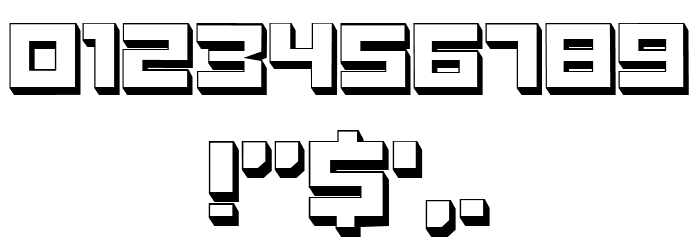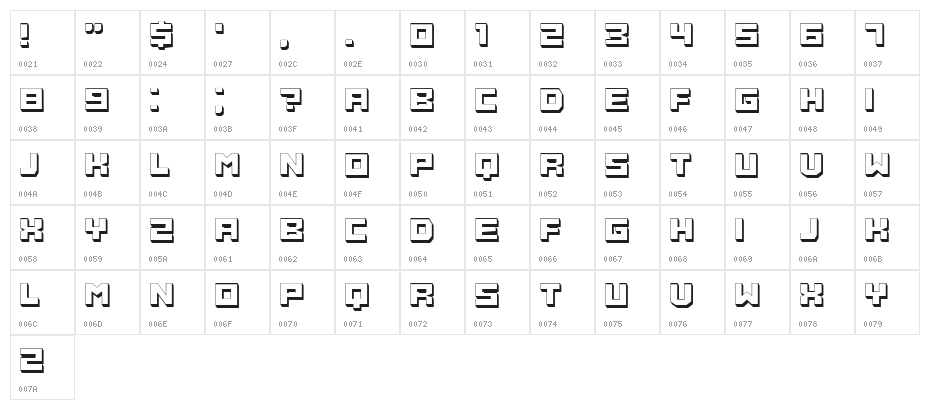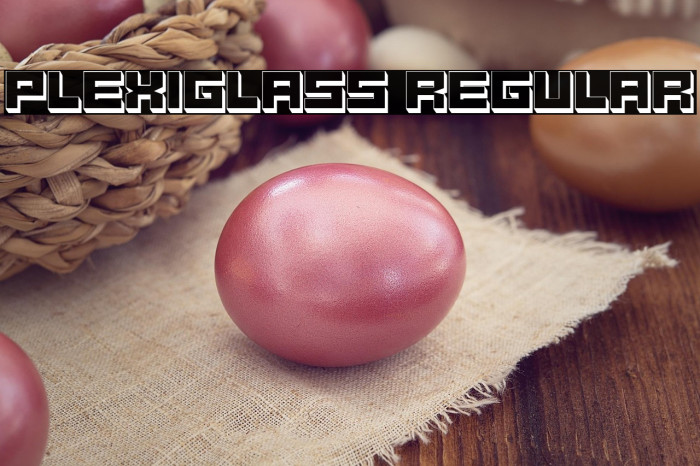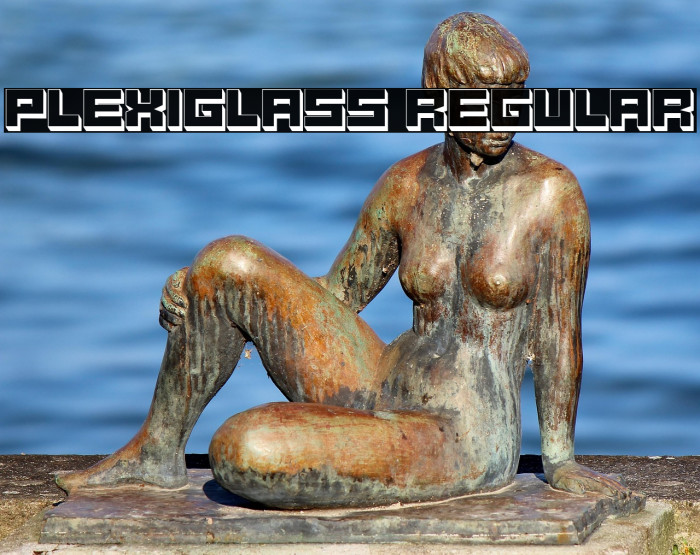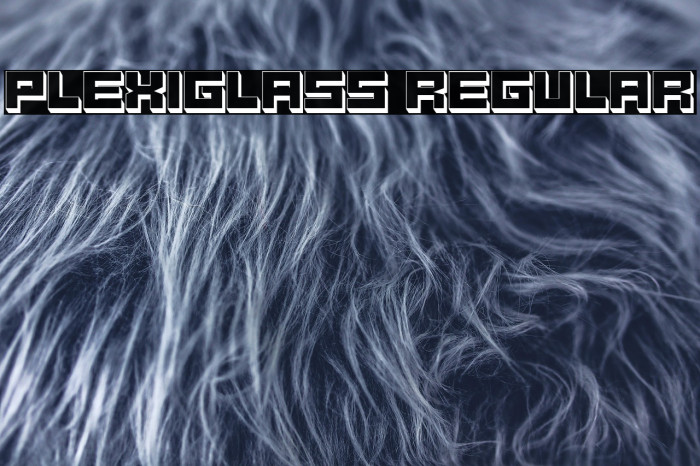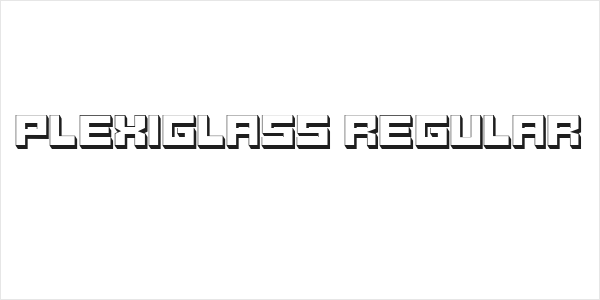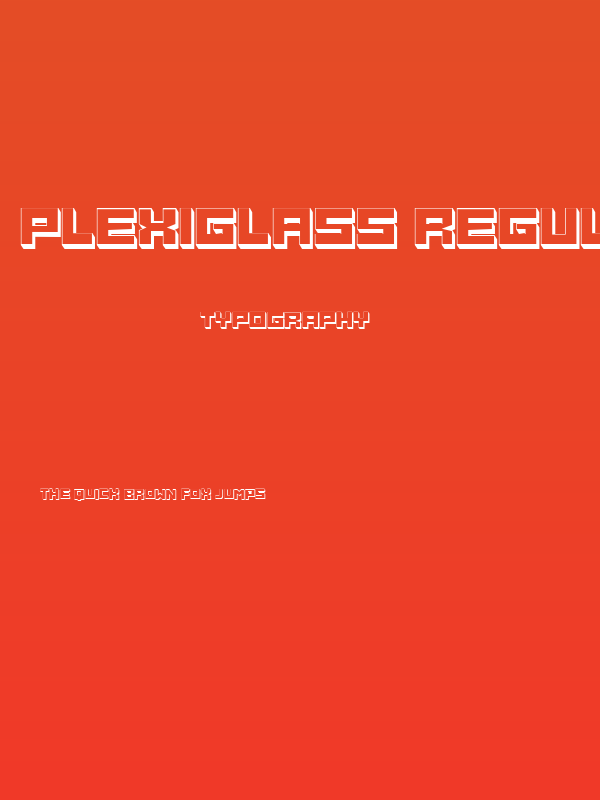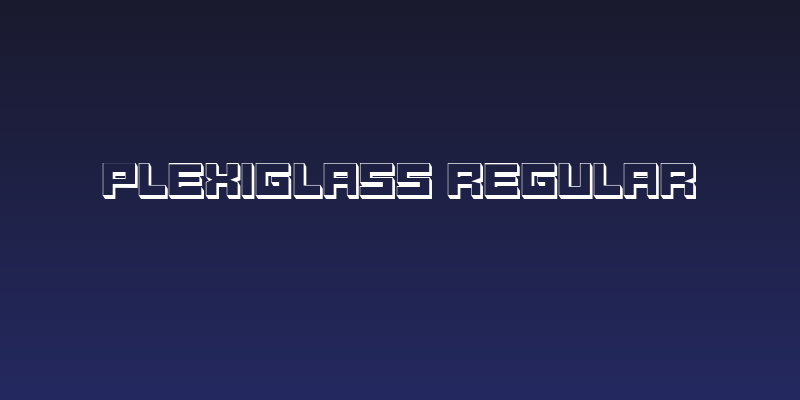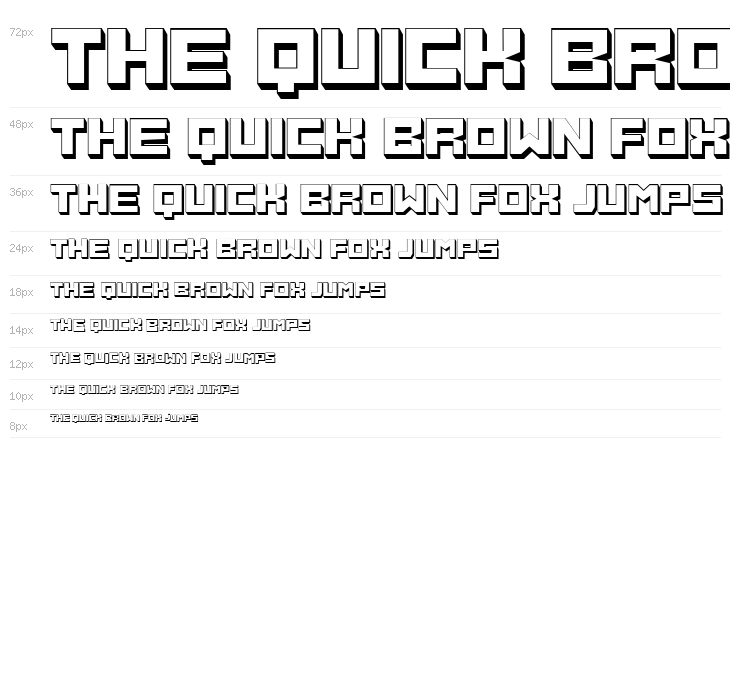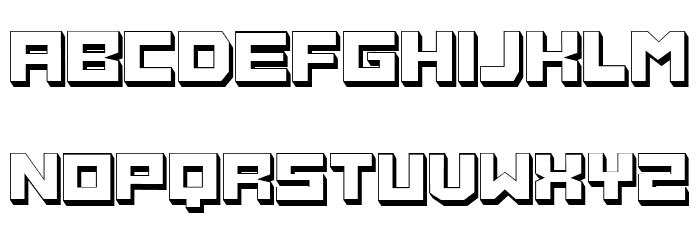
Plexiglass Regular Font
Plexiglass Regular Description
This font features a bold, three-dimensional appearance with a strong geometric structure. Each character is outlined with a shadow effect, giving it a distinct, blocky look that stands out. The uppercase letters are uniform in height, while the numbers and special characters maintain the same bold style. The font's design is reminiscent of retro digital displays, making it ideal for projects that require a futuristic or tech-inspired aesthetic. Its solid, impactful presence is perfect for grabbing attention in headlines or logos.
| Proposed Projects | Ideal for tech-themed designs, video game graphics, posters, and branding that requires a futuristic touch. |